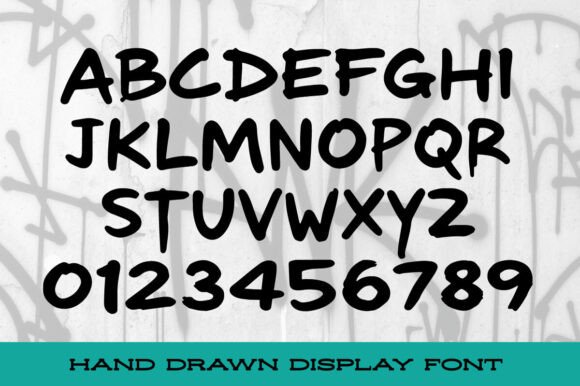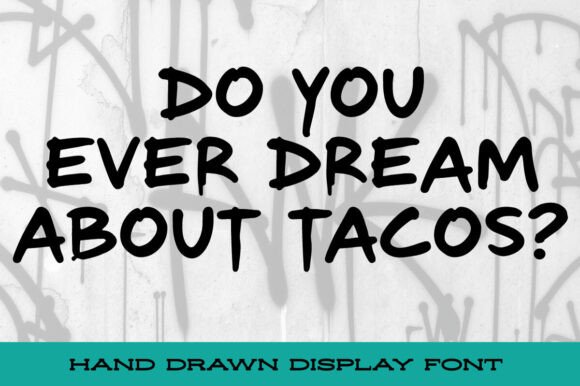
Introduction to Markerama Font
Have you ever been working on a creative project, pouring your heart and soul into it, only to realize that it’s missing that special something that sets it apart from the rest? Maybe you’ve tried using generic fonts, but they just don’t convey the same level of personality and flair that you’re going for. That’s where the Markerama Font comes in – a lively, hand-written marker-style font that’s bursting with creativity and charm.
Perfect for playful designs, posters, kids’ projects, and creative branding, the Markerama Font is a design resource that’s sure to add a touch of fun and whimsy to any project. With its bold, casual strokes and authentic marker feel, this font is sure to make your message stand out with charm and boldness. And the best part? It’s a high-quality, free download that’s available for designers to use in their creative endeavors.
Key Features of Markerama Font
- High-quality design resource with a unique, playful style, perfect for creative projects.
- Designed with a modern aesthetic, making it an ideal choice for contemporary creative projects.
Honest Review: Markerama Font
As a designer, I’m always on the lookout for high-quality design resources to elevate my creative projects. The Markerama Font caught my attention with its unique, handwritten style that adds a personal touch to any design.
- ⚠️ Limited character set, which may not be ideal for longer texts
- ⚠️ Some glyphs may not be perfectly legible at smaller font sizes
Overall, I’m impressed with the Markerama Font’s unique style and high-quality design. While it may not be perfect for every design project, it’s definitely a valuable resource for designers looking to add a personal touch to their work.
The Markerama Font is a versatile design resource ideal for various creative projects. Its high-quality, hand-drawn design makes it perfect for adding a personal touch to your work. One of its standout features is its transparent background, allowing for seamless integration with any design.
Tips for Getting the Most Out of Markerama Font
For the best results, use Markerama Font in conjunction with high-quality images and other design elements. Experiment with different font sizes, colors, and styles to add depth and visual interest to your design.
Markerama Font is ideal for a variety of creative projects, including:
1. Branding and marketing materials
2. Social media graphics
3. Print design
4. Digital design